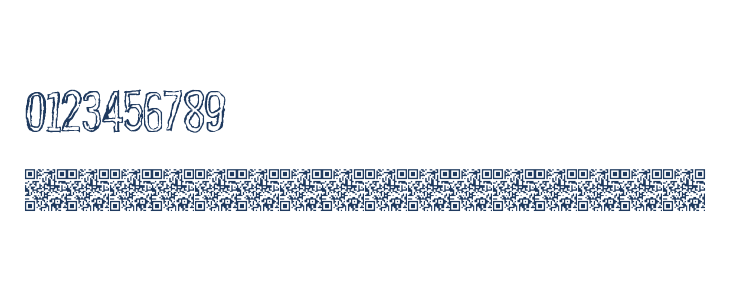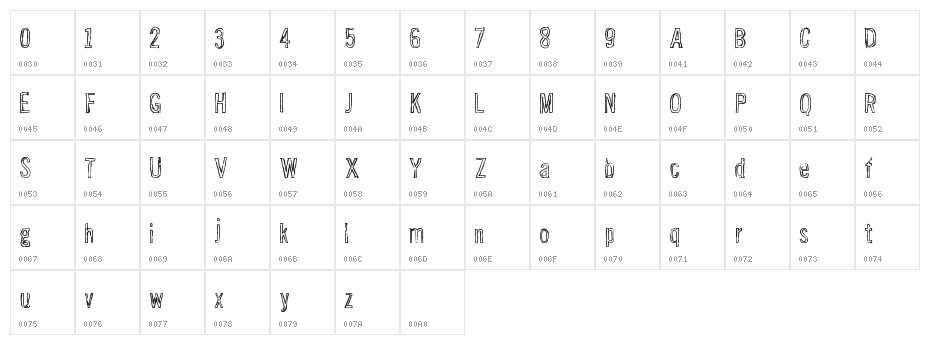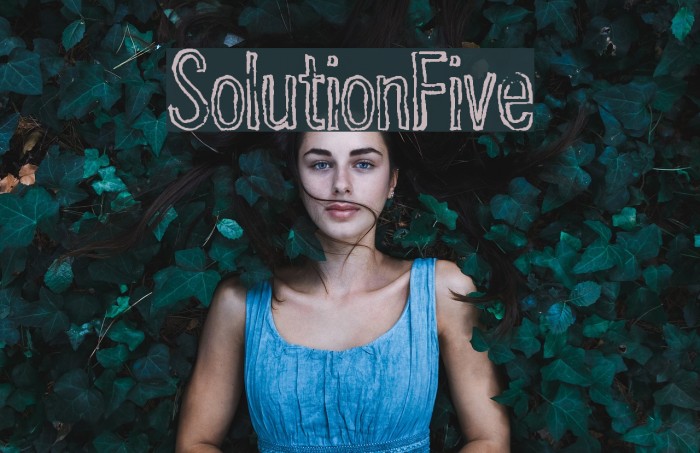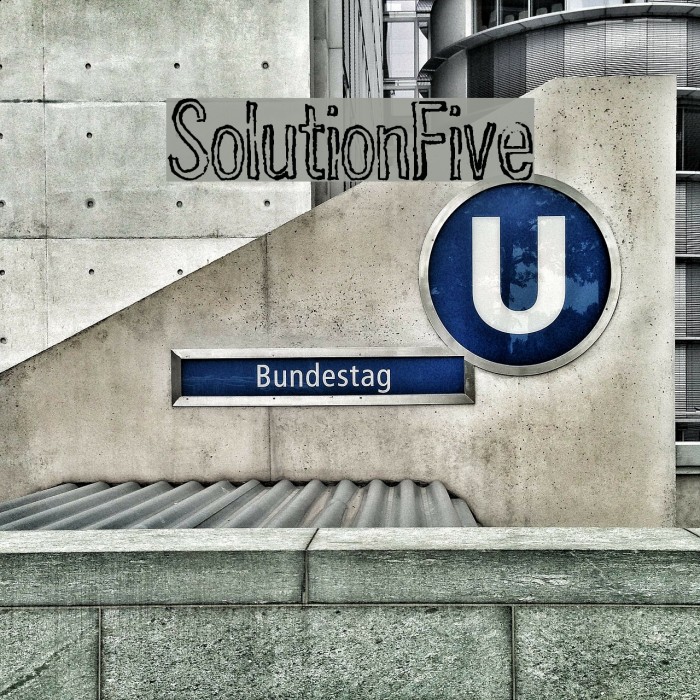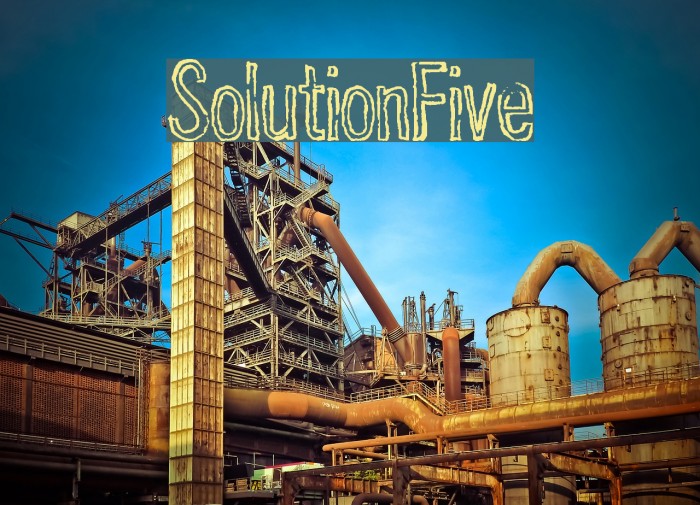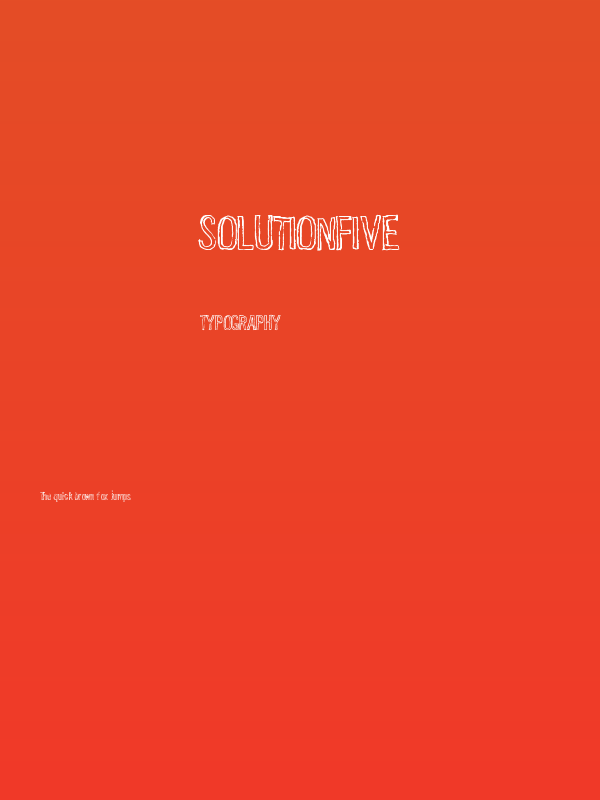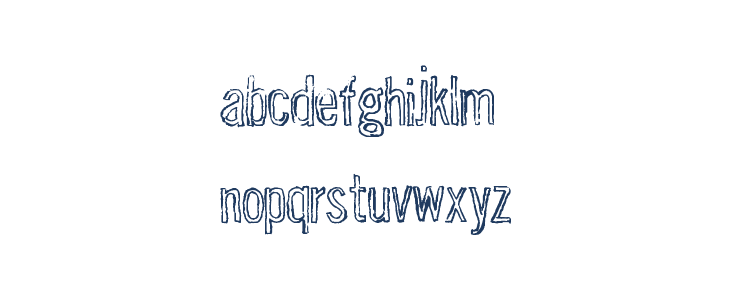
SolutionFive Font
SolutionFive Description
This font features a playful and artistic style, characterized by its hand-drawn appearance. The letters have a rough, sketch-like quality with uneven edges, giving them a casual and informal look. The uppercase and lowercase letters maintain a consistent style, with a slightly wider stance that enhances readability. Numbers and special characters follow the same design principles, ensuring a cohesive appearance across all text elements. The font's unique style makes it suitable for creative projects where a personal touch is desired.
| Proposed Projects | Ideal for children's books, creative posters, and artistic branding projects. |